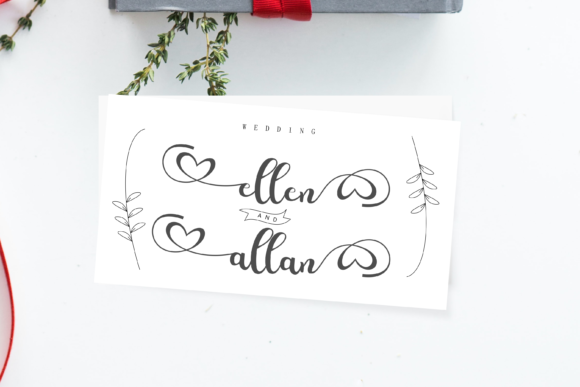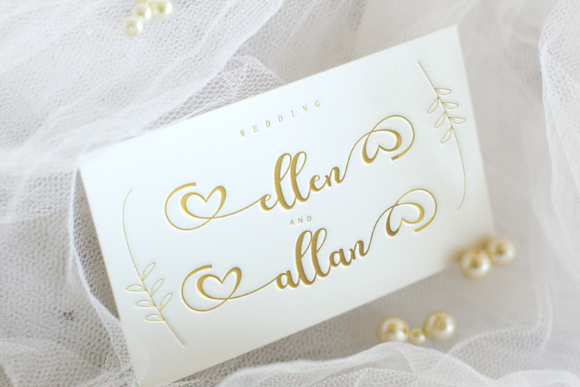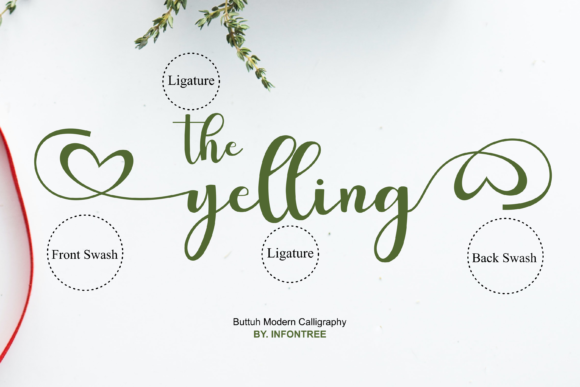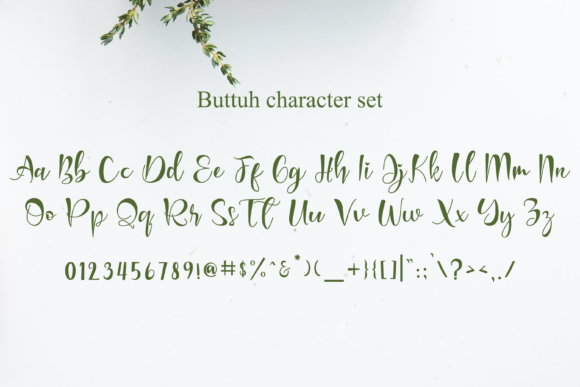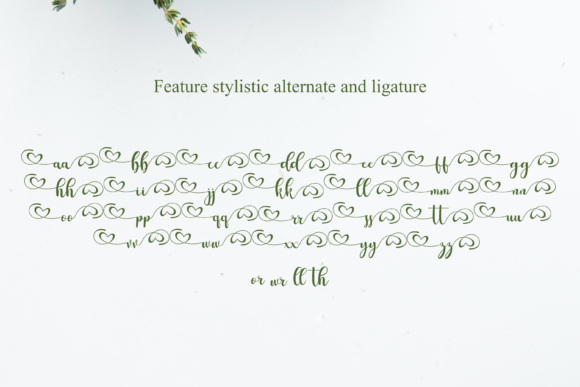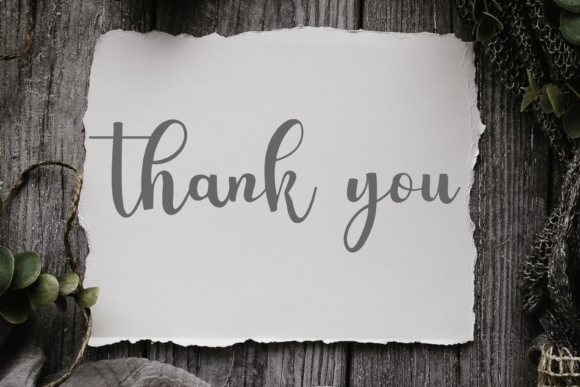
About Buttuh Font
Buttuh is a delicate, elegant and flowing handwritten font. It has beautiful and well balanced characters and as a result, it matches a wide pool of designs. Buttuh features a varying baseline, smooth lines, gorgeous glyphs and stunning alternates.